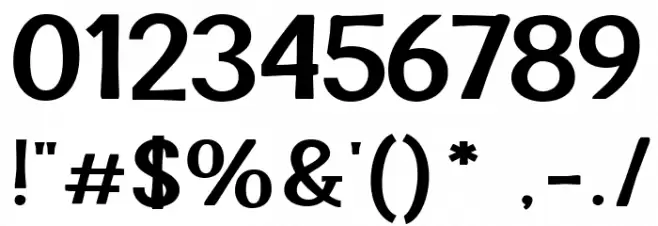
Summit Attack Regular Font
Summit Attack Regular Description
This font features a bold and playful style with a hand-drawn appearance. The uppercase letters are tall and slightly condensed, while the lowercase letters maintain a consistent flow with rounded edges. The numerals are bold and clear, making them easily readable. Special characters are designed to match the playful aesthetic, adding a whimsical touch. The overall design is dynamic and energetic, suitable for projects that require a lively and informal tone.
A bold, playful font with a hand-drawn, energetic style from Cartoon fonts.
- Proposed Projects: Ideal for children's books, playful branding, posters, and creative projects that require a lively and informal tone.
- Overall Style: Playful, Energetic, Hand-drawn